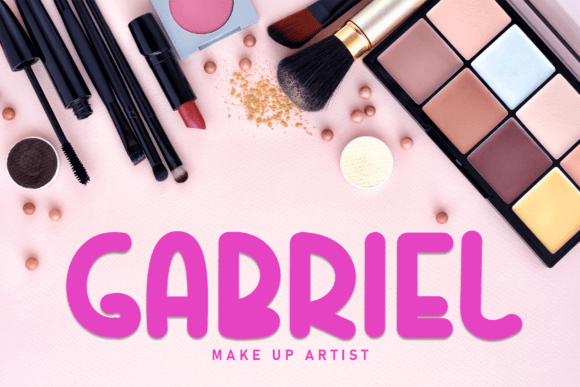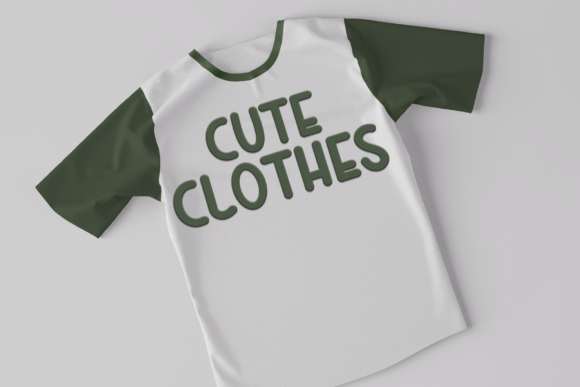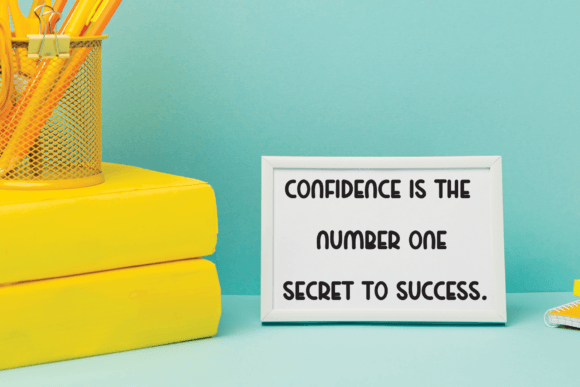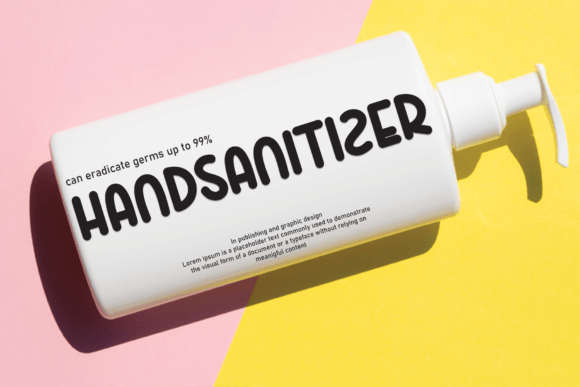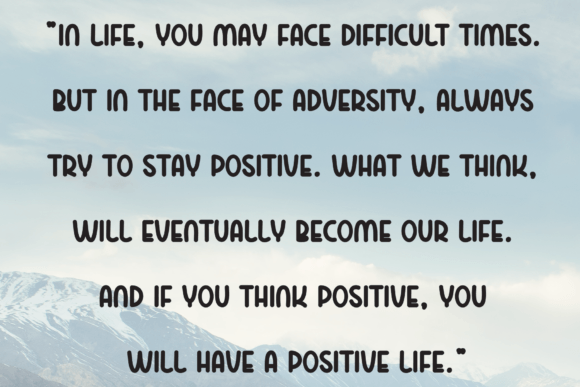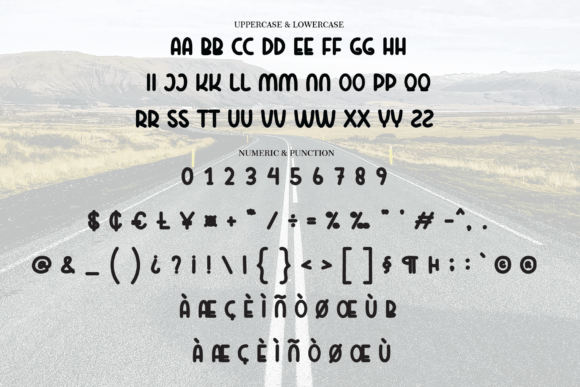
Introduction to Long Drive Font
Long Drive is a sweet and friendly handwritten font.
Cute and fun, this font is ideal for writing wedding invitations, cards, or any other design that might need a lovely touch .
Key Features of Long Drive Font
Why Choose Long Drive Font?
Long Drive Font offers exceptional quality and versatility, making it a valuable addition to your design toolkit. Whether you’re creating for personal projects or commercial use, Long Drive Font delivers professional results.